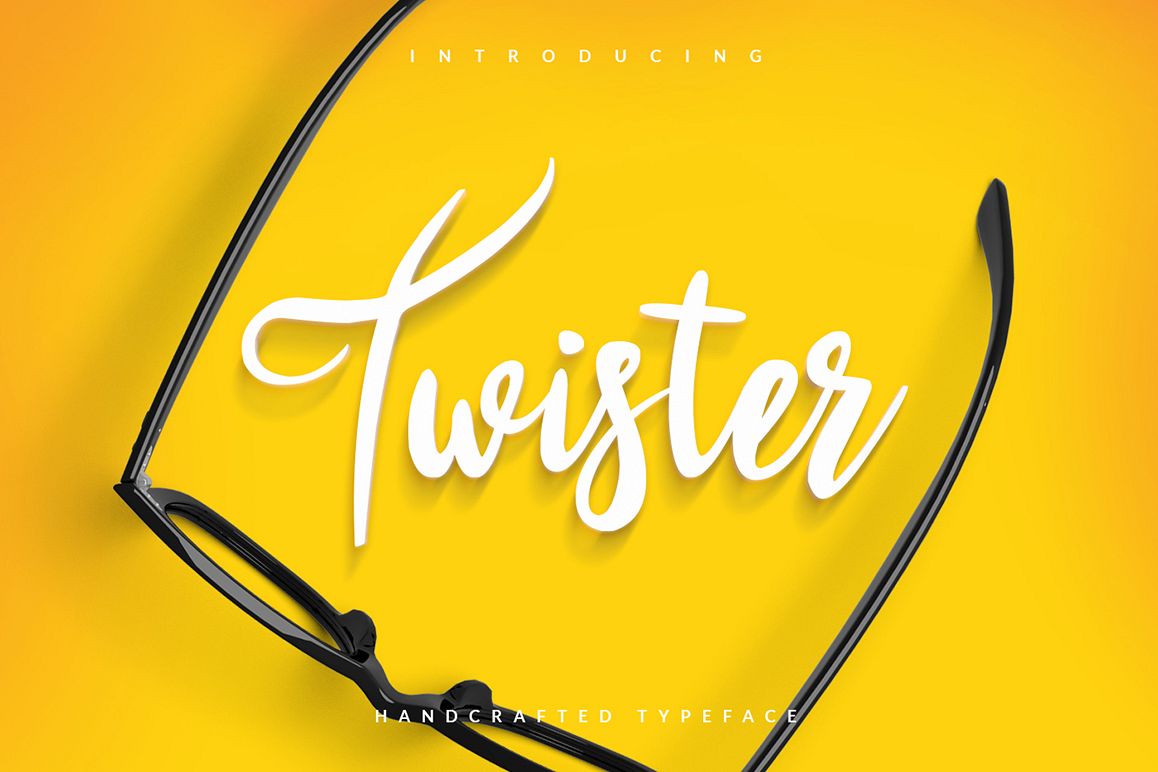
Twister Script
Twister Script is a hand-made font created by using thick brush. It is a lovely font that the thickness of lines are charming. It can be easily used for t-shirts, bags, invitations and so on... It is becoming more interesting with amazing uppercase characters. Than you for viewing it. We hope you would like it.